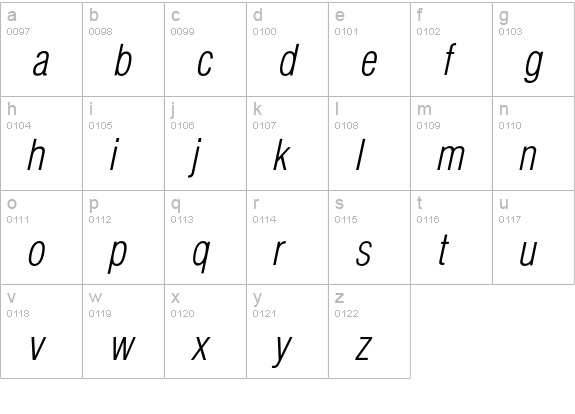
HallmarkeCondLightOblique Font Details
HallmarkeCondLightOblique is a modern and sleek font that adds a touch of sophistication to any design project. With its elegant curves and slanted angles, this font effortlessly exudes a sense of style and professionalism. Its condensed letterforms make it ideal for fitting more text into limited spaces without sacrificing legibility. This versatile font is perfect for a wide range of applications, from logos and branding materials to website headers and print advertisements. Its subtle oblique slant adds a dynamic and contemporary twist to your designs, giving them a unique and eye-catching appeal. One of the best things about HallmarkeCondLightOblique is that it is available for free! You can easily download this font at FontsMarket.com, making it accessible to designers and enthusiasts alike. Whether you are working on a personal project or a commercial venture, this font will elevate your designs to new heights. With its clean and crisp lines, HallmarkeCondLightOblique is easy to read even at smaller sizes, making it a great choice for body text as well. The carefully crafted letterforms ensure optimal legibility, ensuring that your message is conveyed effectively and effortlessly. So why wait? Take advantage of this amazing font that combines elegance, style, and readability. Download HallmarkeCondLightOblique for free at FontsMarket.com and bring a touch of sophistication to your designs today.